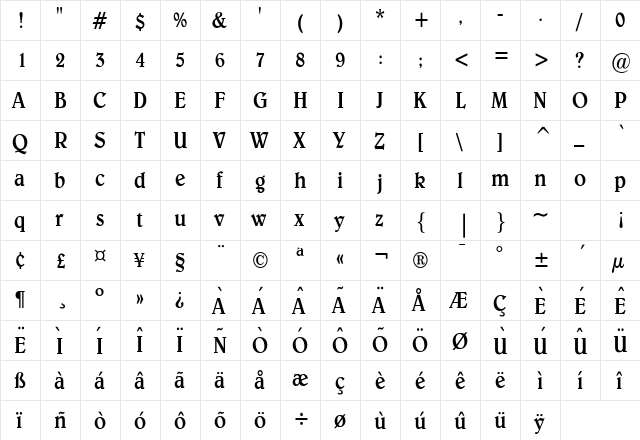
Blew Thin Normal
Design Context for Blew Thin Typeface
Blew Thin takes a measured approach to typography — its balanced proportions and neutral character make it a reliable workhorse for both digital and print work. Its slender proportions lend an understated elegance to any composition.